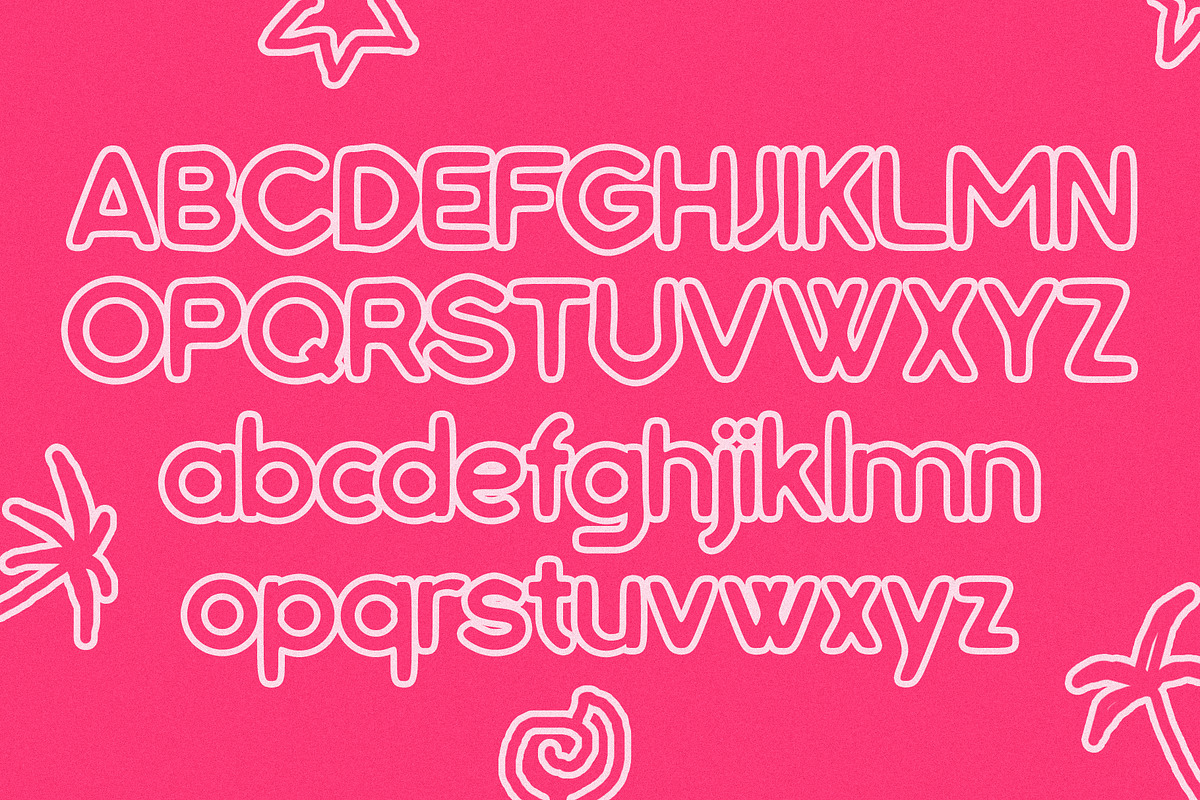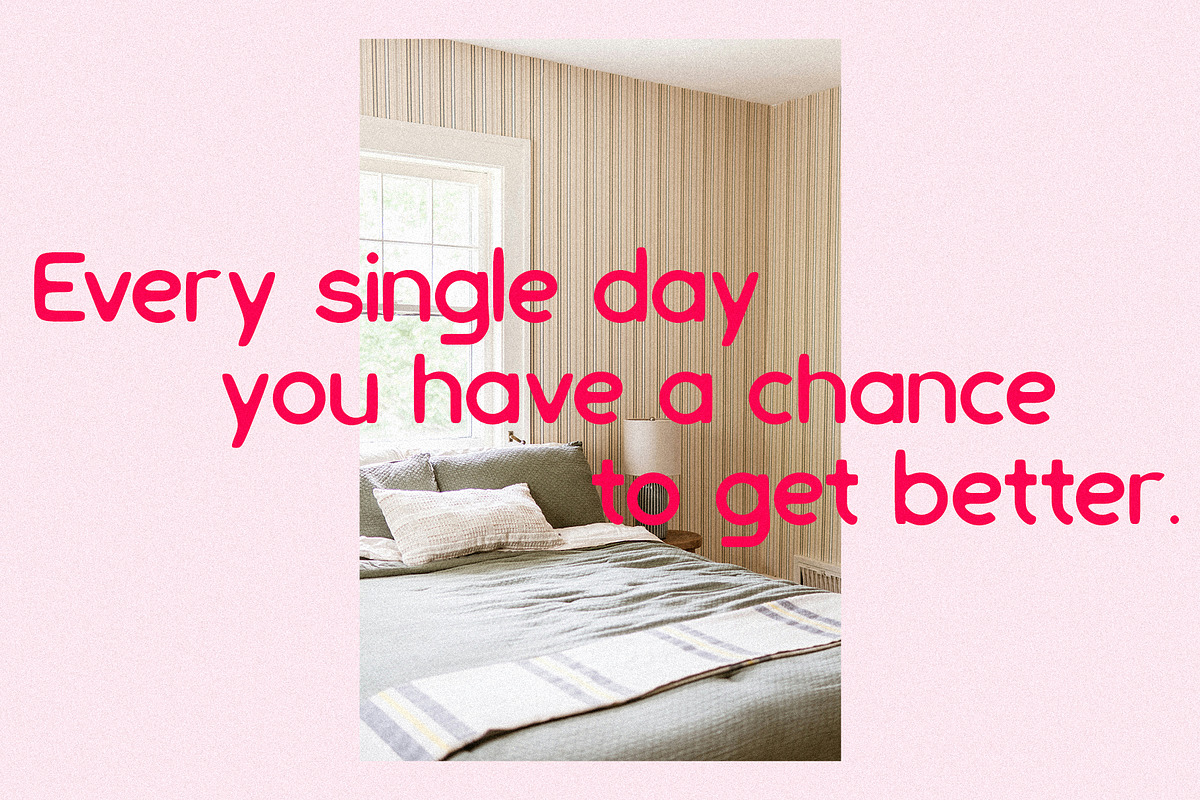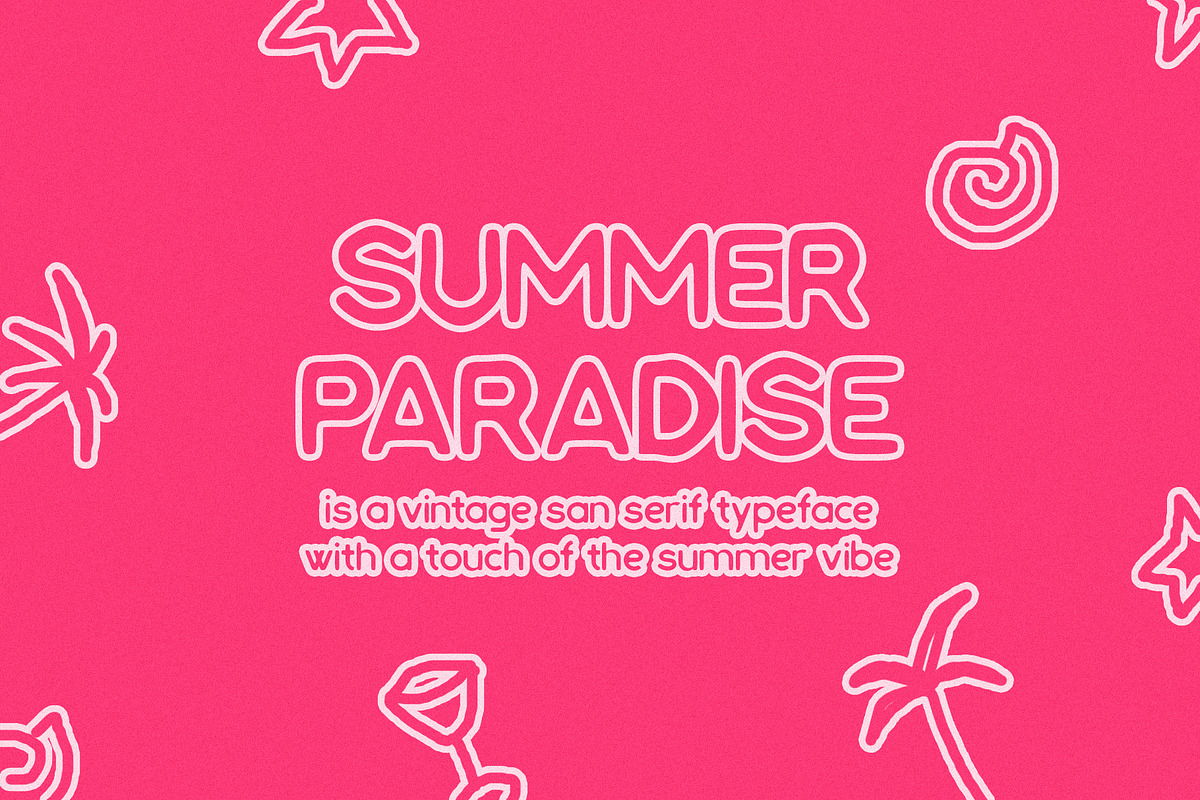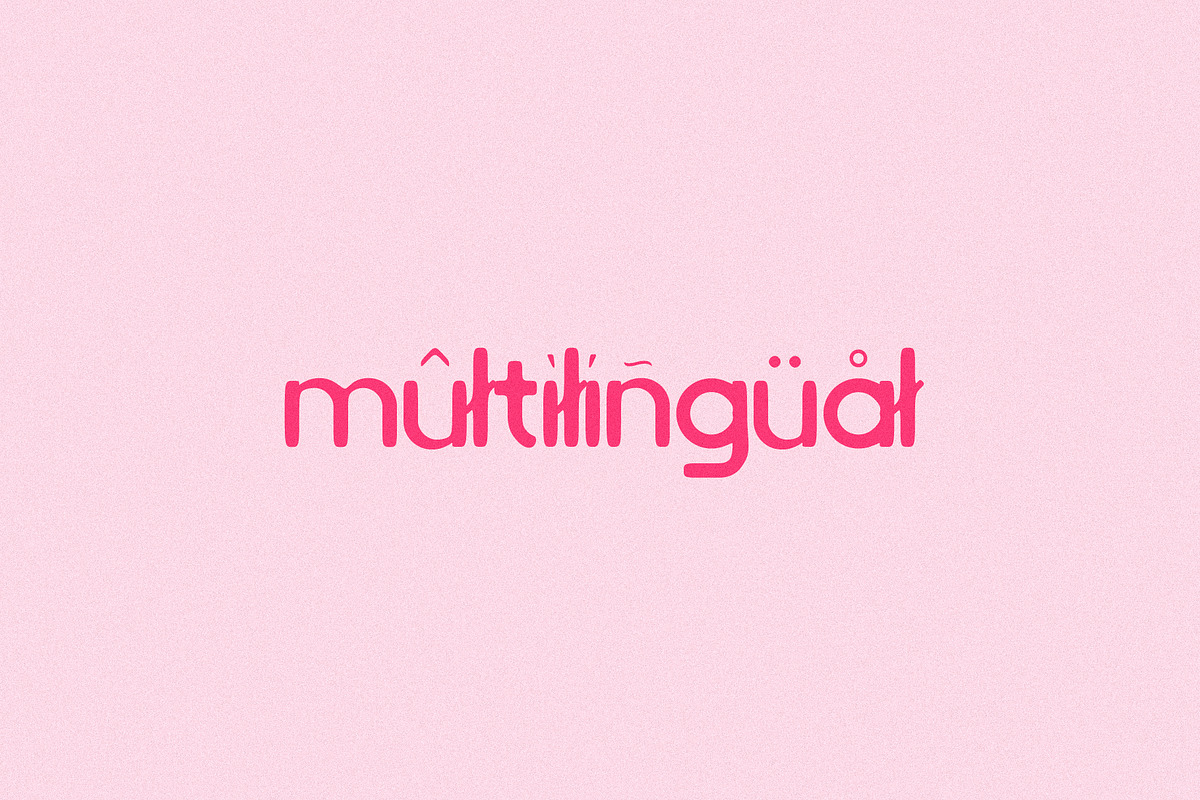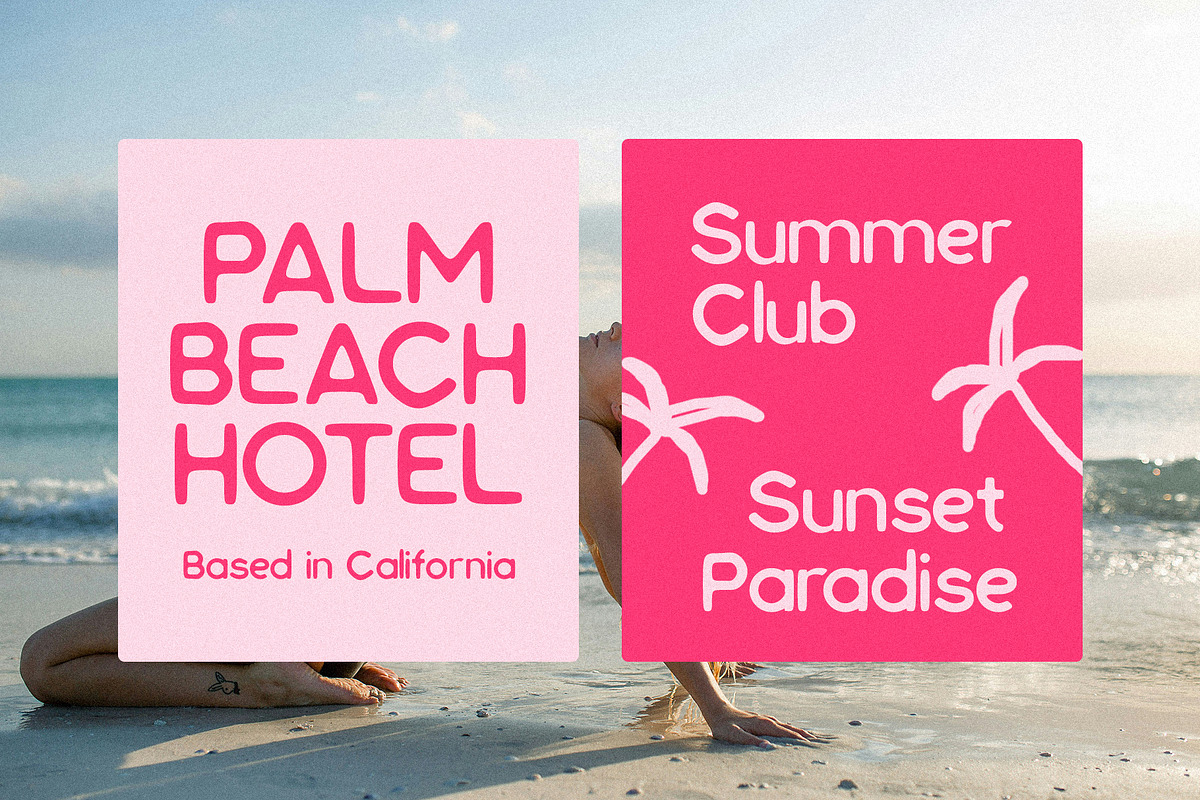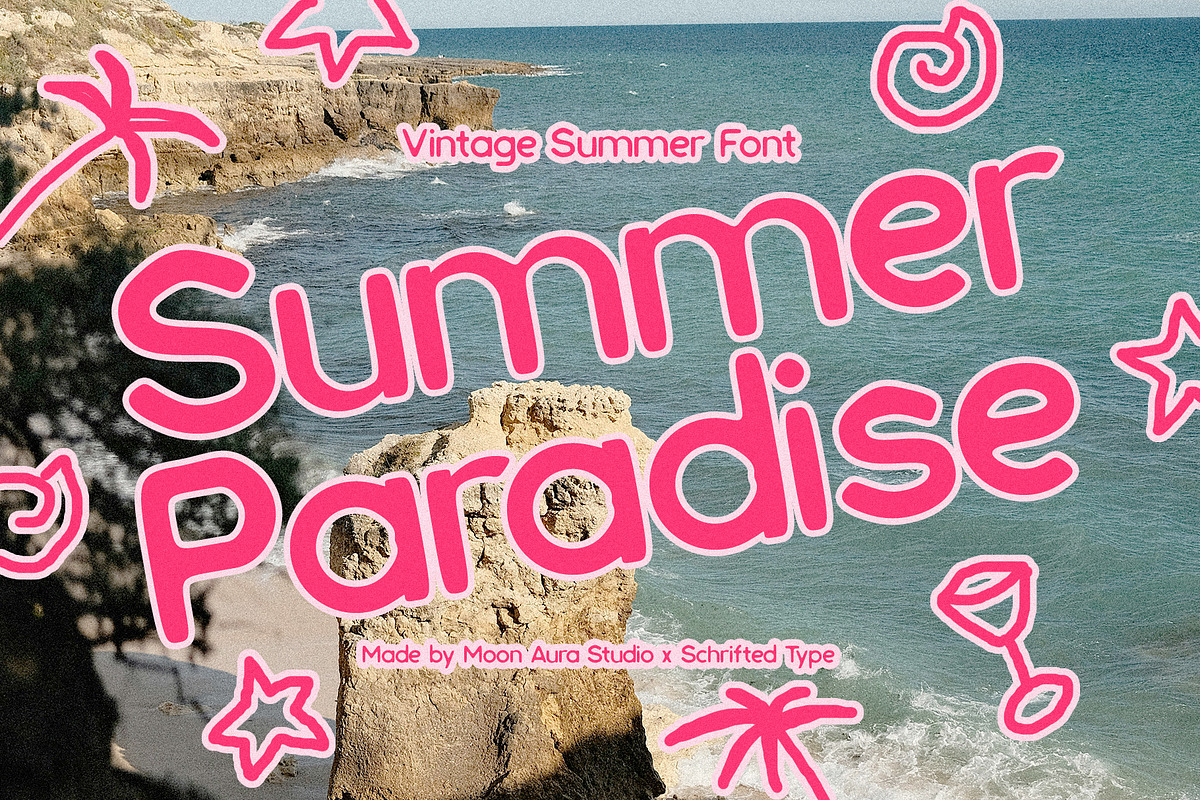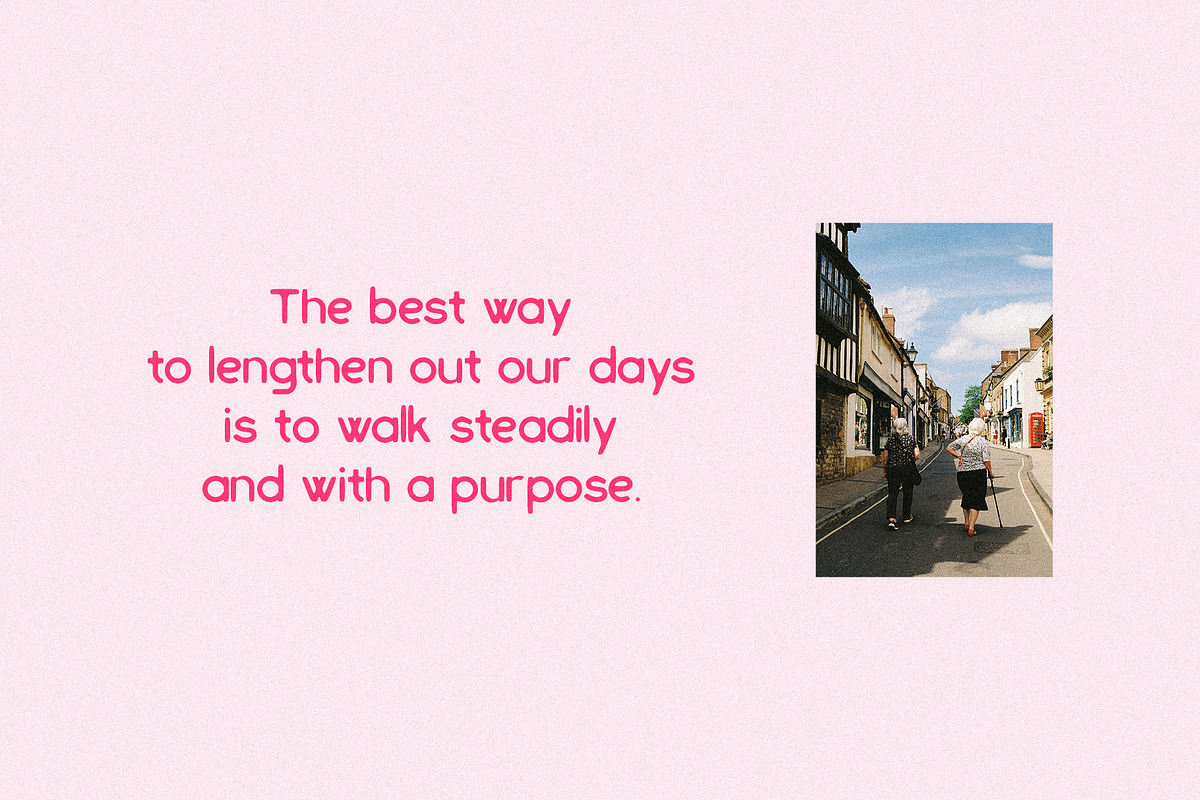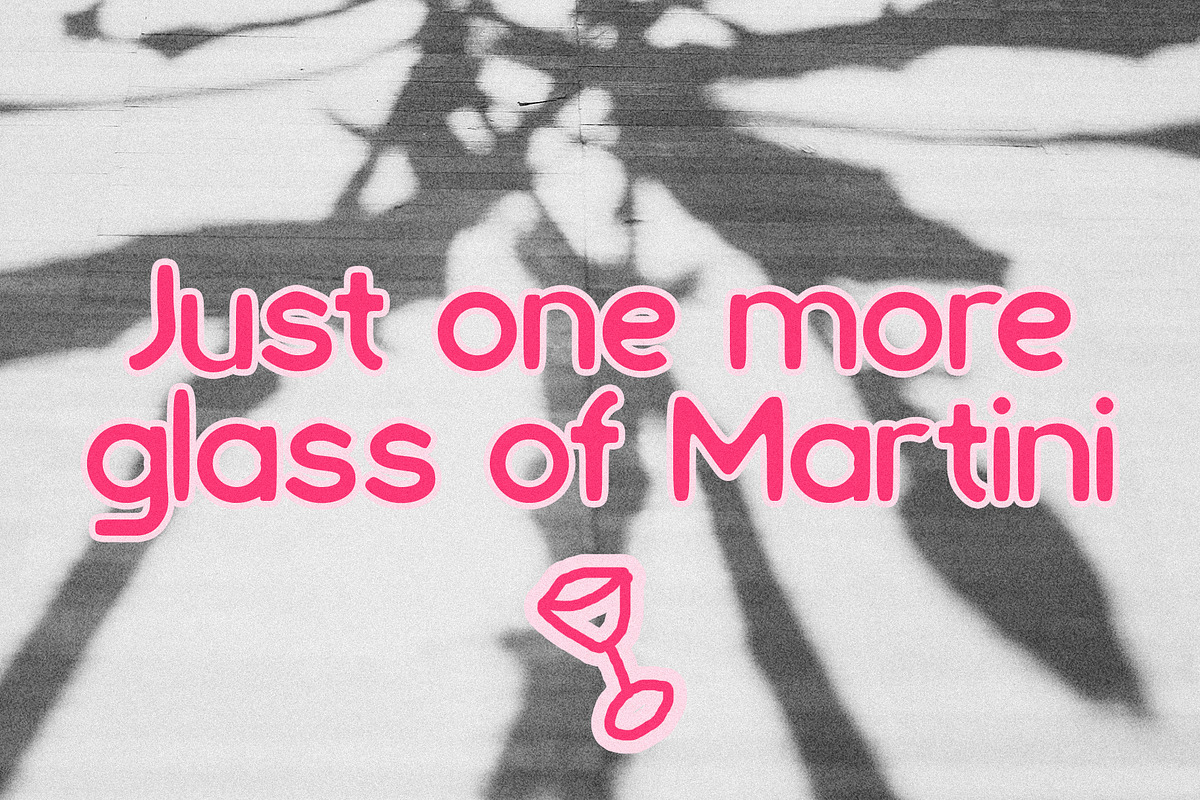
Summer Paradise Vintage Sans Serif
Summer Paradise Vintage Sans Serif is a bold, retro-inspired typeface that captures the carefree spirit of endless summer days. Featuring clean sans serif forms with a vintage touch, this font blends nostalgic charm with modern versatility. Perfect for branding, logos, packaging, posters, apparel, social media graphics, and beach-themed designs, it delivers a warm, laid-back aesthetic that stands out effortlessly.
Whether you're creating tropical branding, vacation-inspired artwork, or classic retro projects, Summer Paradise Vintage Sans Serif brings timeless style and sunny vibes to every design.